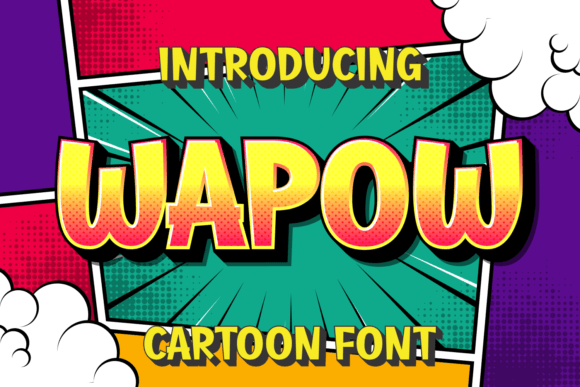
Wapow Font
Step into a vibrant world of cartoons with Wapow Font, a display font that packs a punch! Its bold and striking characters burst with personality, making your designs leap off the screen. Whether you're crafting eye-catching posters, whimsical headlines, or unique fabric prints, Wapow Font is your ticket to captivating creations.
Unleash your imagination and let Wapow Font transport you to a realm of captivating designs. Its thick and sturdy characters exude a sense of strength and individuality, setting your projects apart from the ordinary. Picture your designs adorned with Wapow Font, commanding attention and leaving a lasting impression on your audience.
Wapow Font's versatility knows no bounds. It effortlessly adapts to a myriad of design endeavors. Whether you're designing for web graphics, creating unforgettable logos, or adding a touch of playfulness to your social media posts, Wapow Font seamlessly blends into your vision. Let your creativity run wild as you explore the endless possibilities this remarkable font offers.
Dive into the world of Wapow Font and discover a font that sparks joy and ignites creativity. Its cartoonish charm is guaranteed to leave a smile on your face. Embrace the playful spirit of Wapow Font and let your designs radiate with happiness and positivity.
Wapow Font is not just a font; it's an invitation to embark on a whimsical adventure. It's a font that captures the essence of fun and lightheartedness, transforming your designs into captivating masterpieces. Download Wapow Font today and unlock a world of boundless creativity!